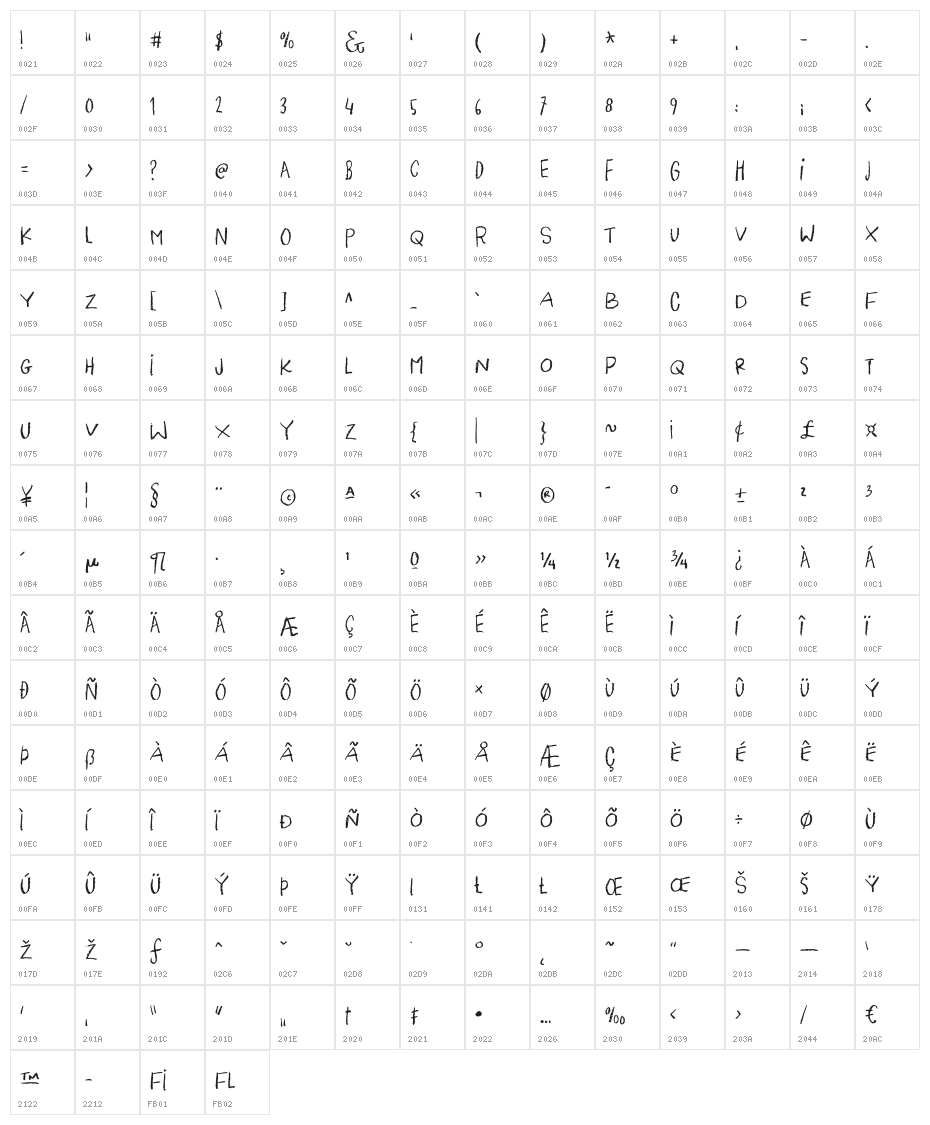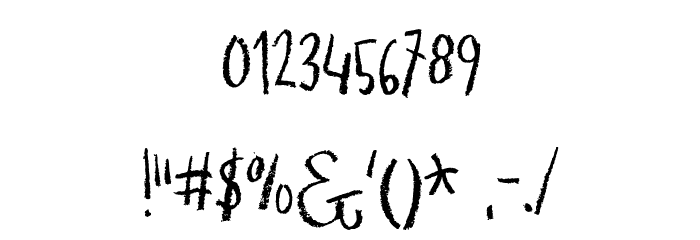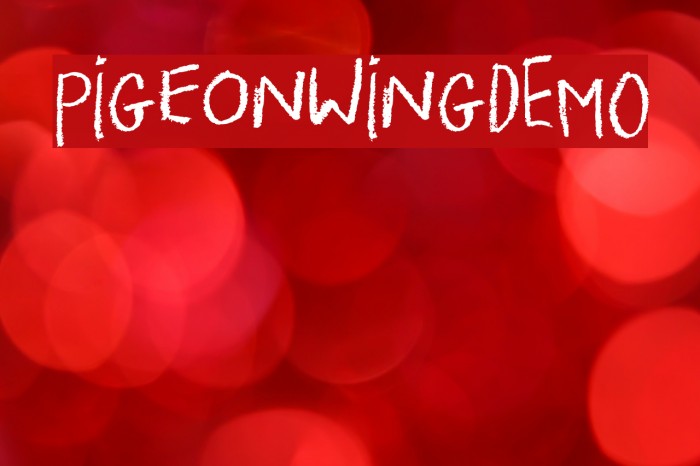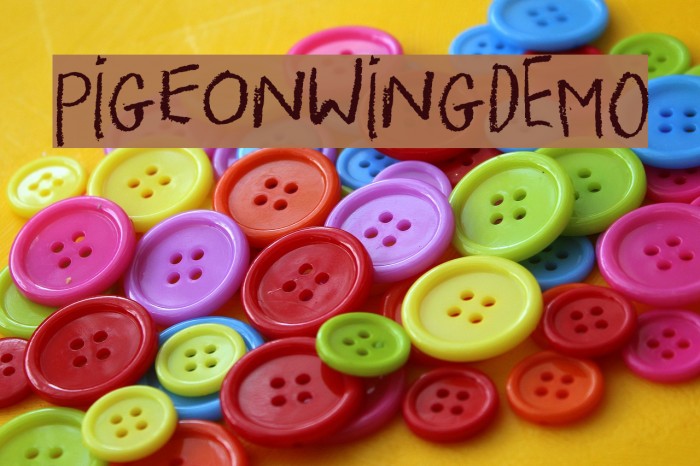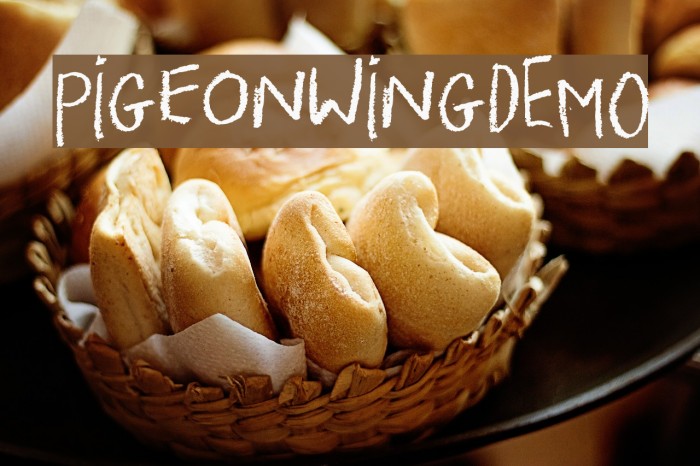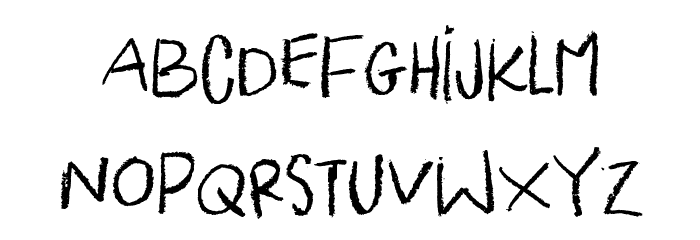
PigeonWingDEMO Font
PigeonWingDEMO Description
This font features a playful and artistic handwritten style, characterized by its irregular strokes and a slightly rough texture that gives it a casual and approachable feel. The letters are slightly tilted, adding to the dynamic and lively appearance. The uppercase and lowercase letters maintain a consistent style, with a natural flow that mimics authentic handwriting. The numbers and special characters are crafted with the same attention to detail, ensuring uniformity across all glyphs. This font's unique charm makes it suitable for projects that require a personal touch.
| Proposed Projects | Ideal for greeting cards, personal branding, creative posters, and social media graphics. |